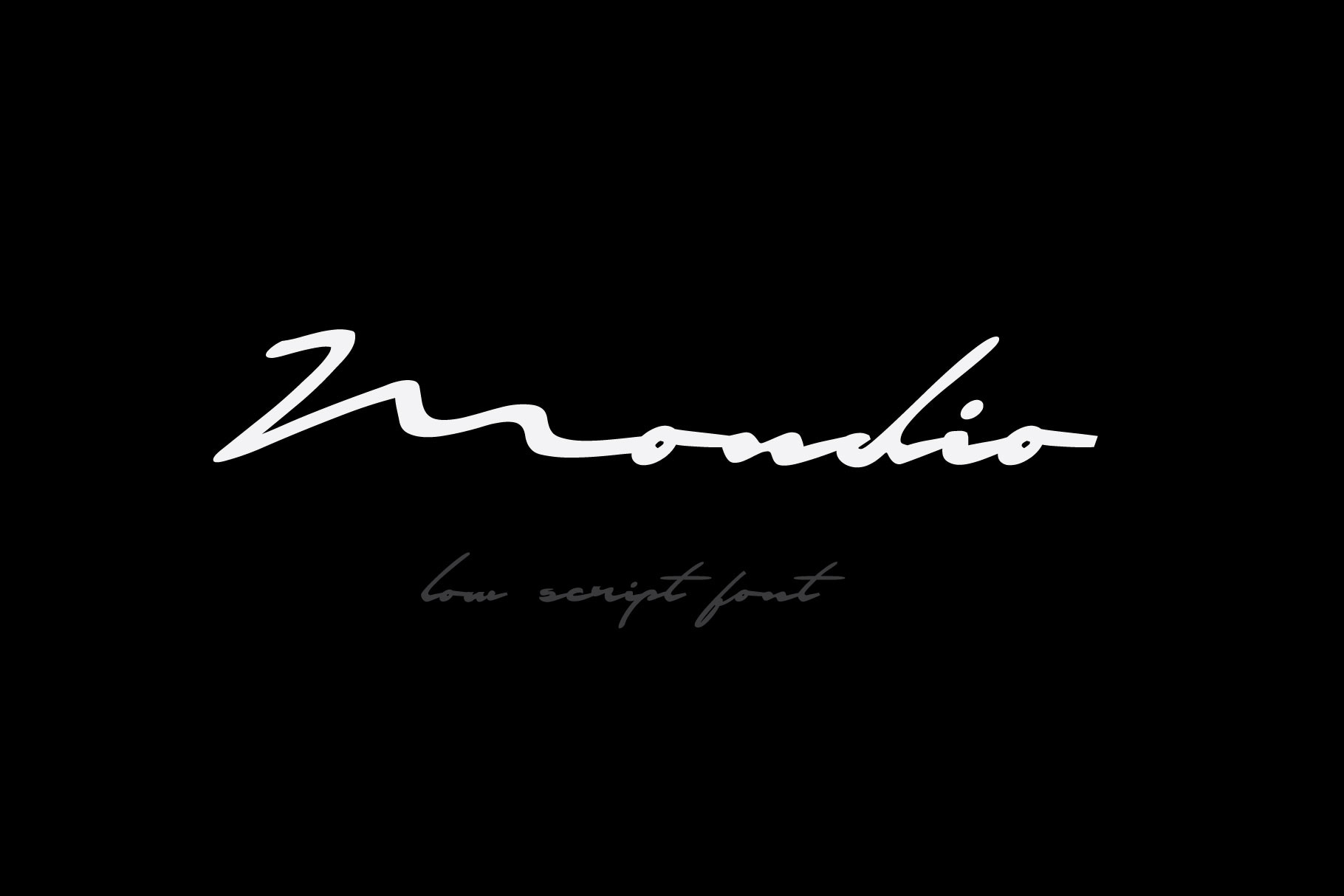
Mondio - Low Script Font
Mondio, it is a low script hand writing font. handwritten to give your designs a free-flowing and stylish design. , this font is a delightful addition to any project!